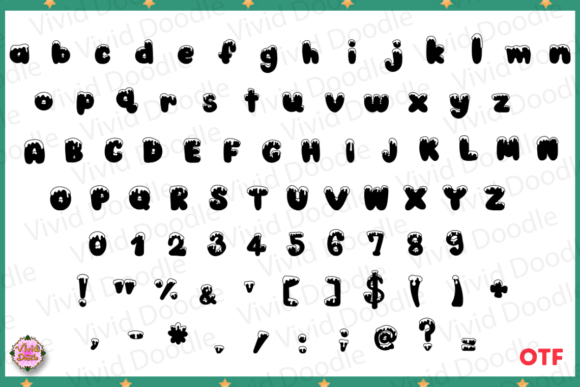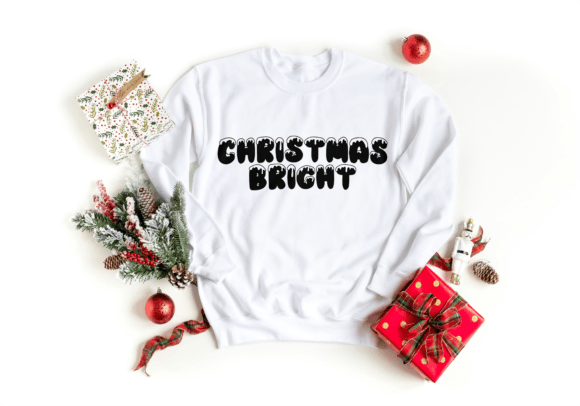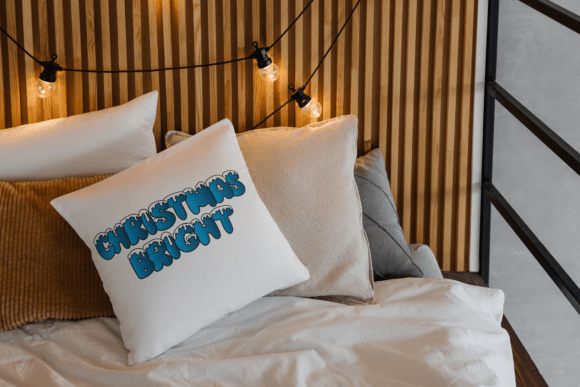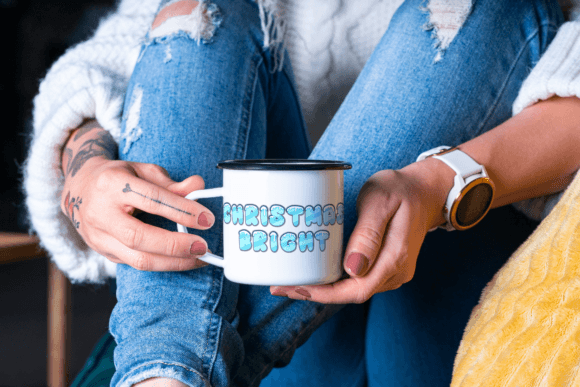
Deck the Halls with the Perfect Font
As you sit amidst twinkling lights, the scent of pine, and the warmth of a crackling fireplace, you know it’s the most magical time of the year – Christmas! It’s the moment when creativity knows no bounds, and your imagination runs wild. You envision the perfect holiday card, a festive social media post, or a charming gift tag. But, what makes your project truly special? The answer lies in the perfect font – one that radiates joy, warmth, and the essence of the season.
Introducing the Christmas Bright 19 Font, a hand-lettered masterpiece designed to transport your audience straight to the heart of the holiday spirit. This enchanting font is more than just a typeface; it’s a way to infuse your creations with the magic of the season. As a designer, you’ll appreciate its adaptability and versatility, making it an invaluable addition to your toolkit.
Key Features of Christmas Bright 19 Font
- Font Family: Christmas Bright 19, a festive and cheerful font designed for holiday-themed projects.
- Unique Characteristics: Christmas Bright 19 features a distinctive, hand-drawn style with intricate details and ornaments, making it perfect for adding a touch of whimsy to holiday designs.
Designer Review: Christmas Bright 19 Font
Overall, I think Christmas Bright 19 Font is a cute addition to any holiday project. ✨ It’s perfect for creating festive and cheerful designs, especially for Christmas-themed projects. The font is playful and fun, with a bold and eye-catching personality that’s sure to grab attention.
- ✨ Bold and playful personality: The font is perfect for creating a festive atmosphere and grabbing attention.
- ✨ Versatile: The font can be used for a variety of projects, from social media graphics to holiday cards and invitations.
- ✨ Customizable: The font can be easily customized to fit your project’s specific needs, making it a great option for designers.
- ⚠️ Limited use outside of the holiday season: The font’s festive personality may not be suitable for non-holiday projects.
- ⚠️ Limited font sizes: The font may not be suitable for large or small font sizes, as the bold personality may get lost or become too overwhelming.
Overall, I would give Christmas Bright 19 Font 4 out of 5 stars. It’s a great option for holiday projects and can add a fun and playful touch to your designs. However, it may not be the best option for non-holiday projects or projects that require a more subtle font personality.
Use Christmas Bright 19 Font for festive designs, invitations, and greeting cards.
Combine it with bold colors and patterns to create a fun and playful atmosphere.
Experiment with different font sizes and styles to add visual interest to your design.
Christmas cards and invitations
Festive social media posts and graphics
Holiday-themed printables and templates
Alternatives to Christmas Bright 19 Font for Designers
Great Vibes is a modern, cursive script font that’s perfect for adding a touch of elegance to your designs. It’s great for use in invitations, greeting cards, and other festive occasions. Great Vibes is a more elegant and sophisticated alternative to Christmas Bright 19 Font, which is more playful and cartoonish.
Carolyna Pro is a beautiful, high-end script font that’s perfect for luxury brands and high-end designs. It’s great for use in invitations, packaging, and other premium designs. Carolyna Pro is a more refined and sophisticated alternative to Christmas Bright 19 Font, which is more playful and casual.
Alex Brush is a elegant, handwritten font that’s perfect for adding a touch of warmth and personality to your designs. It’s great for use in invitations, greeting cards, and other festive occasions. Alex Brush is a more elegant and refined alternative to Christmas Bright 19 Font, which is more playful and cartoonish.
Q: What is the recommended font size and spacing for the Christmas Bright 19 Font?
For optimal readability, we recommend using the Christmas Bright 19 Font at a minimum size of 12 points. For headings and titles, you can use larger font sizes, up to 24 points or more. As for spacing, we recommend using a line height of at least 1.2 times the font size to ensure clear readability.